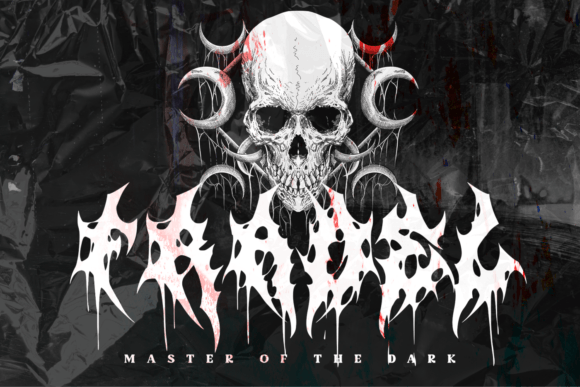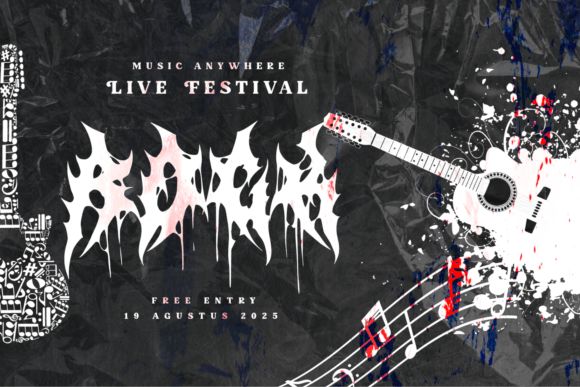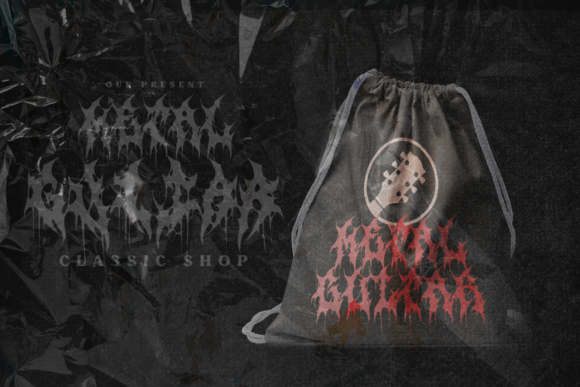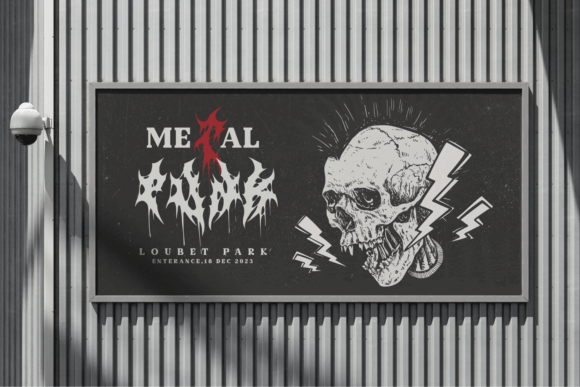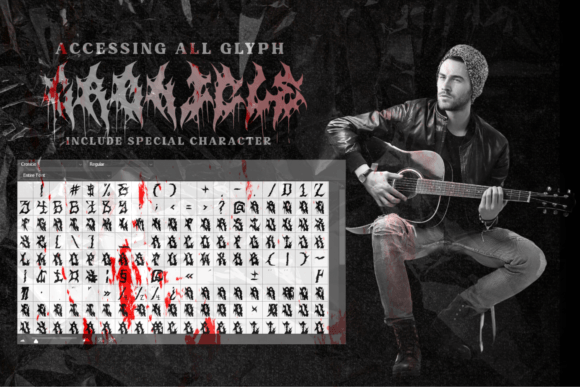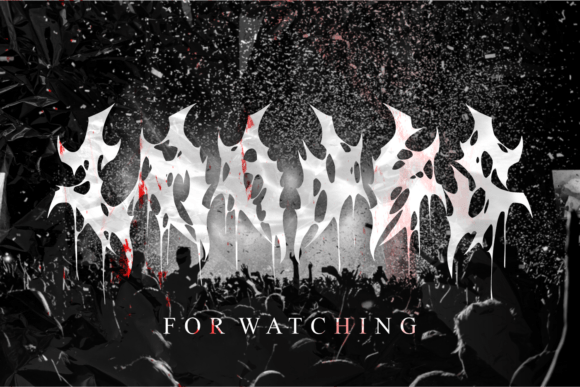
Unleash Your Dark Side with Cronicle Font: The Ultimate Horror and Death Metal Blackletter Font
Are you a designer or crafty enthusiast looking to add a touch of darkness and eeriness to your projects? Look no further than the Cronicle Font, a horror and death metal blackletter font that’s sure to send shivers down your spine. With its sharp edges and intricate details, this font is perfect for any project that requires a menacing and eerie feel.
The Inspiration Behind Cronicle Font
Cronicle Font is inspired by the dark and mysterious world of horror and death metal music. Its unique design is characterized by sharp edges, intricate details, and a sense of foreboding that’s sure to captivate and terrify your audience. Whether you’re creating album art, horror movie posters, or simply want to add a touch of darkness to your designs, Cronicle Font is the perfect choice.
Key Features of Cronicle Font
- Sharp Edges and Intricate Details: Cronicle Font features sharp edges and intricate details that give it a menacing and eerie feel.
- Perfect for Horror and Death Metal Projects: Cronicle Font is specifically designed for horror and death metal projects, making it perfect for album art, horror movie posters, and more.
- Captivating and Terrifying: This font is sure to captivate and terrify your audience, adding a touch of darkness and eeriness to your designs.
Uses for Cronicle Font
Cronicle Font is perfect for a variety of projects, including:
- Album Art: Create eye-catching album art for horror and death metal bands with Cronicle Font.
- Horror Movie Posters: Add a touch of darkness and eeriness to your horror movie posters with this font.
- Merchandise: Create merchandise such as t-shirts, stickers, and more with Cronicle Font.
- Graphic Design Projects: Use Cronicle Font to add a touch of darkness and eeriness to your graphic design projects.
Why Choose Cronicle Font?
There are many fonts available that claim to be horror and death metal-inspired, but Cronicle Font stands out from the rest. Here are just a few reasons why:
- Unique Design: Cronicle Font features a unique design that’s sure to captivate and terrify your audience.
If you’re looking for a font that’s sure to add a touch of darkness and eeriness to your projects, look no further than Cronicle Font. With its sharp edges and intricate details, this font is perfect for any project that requires a menacing and eerie feel. Whether you’re creating album art, horror movie posters, or simply want to add a touch of darkness to your designs, Cronicle Font is the perfect choice.